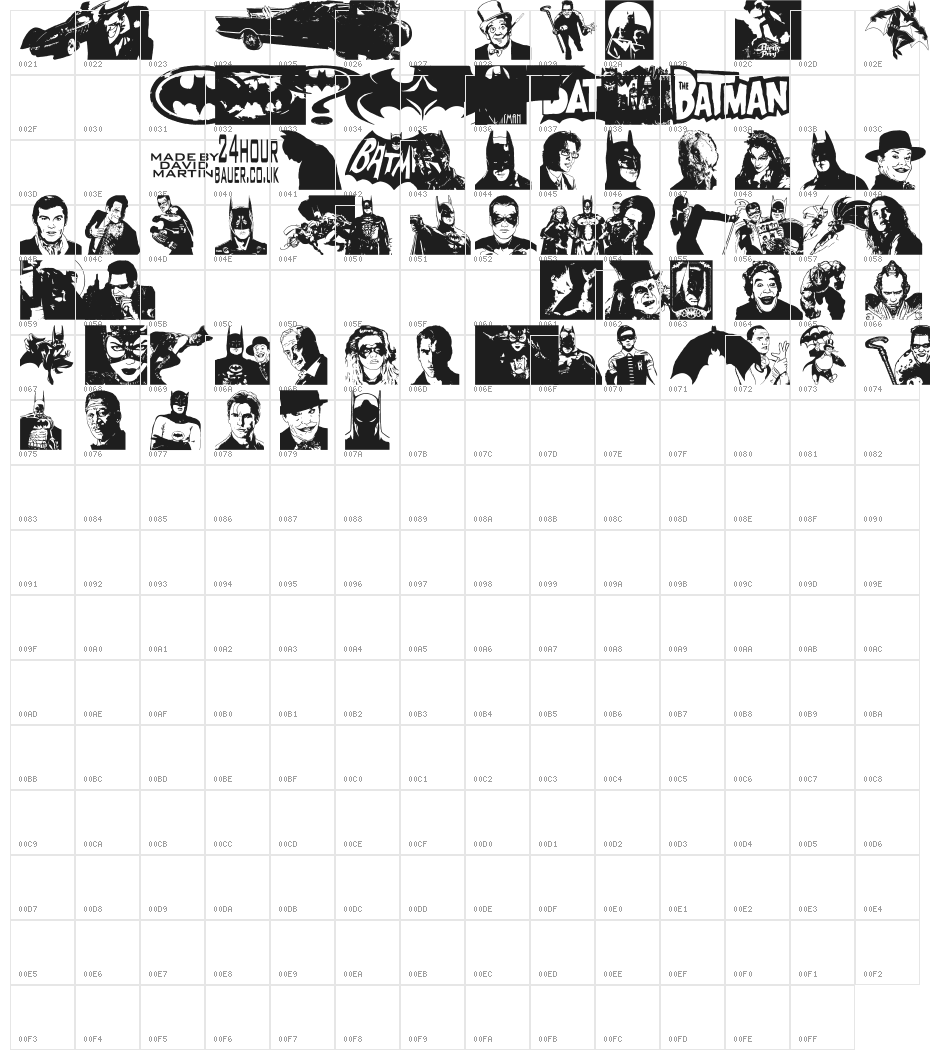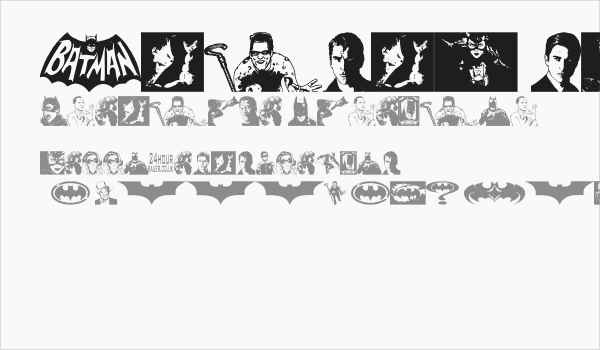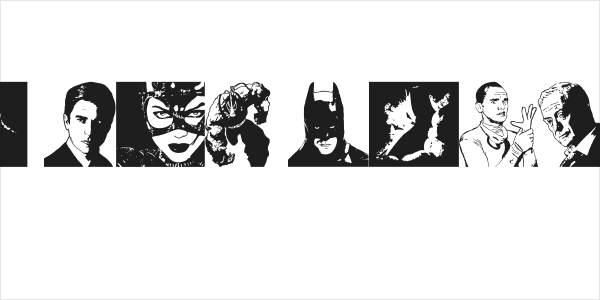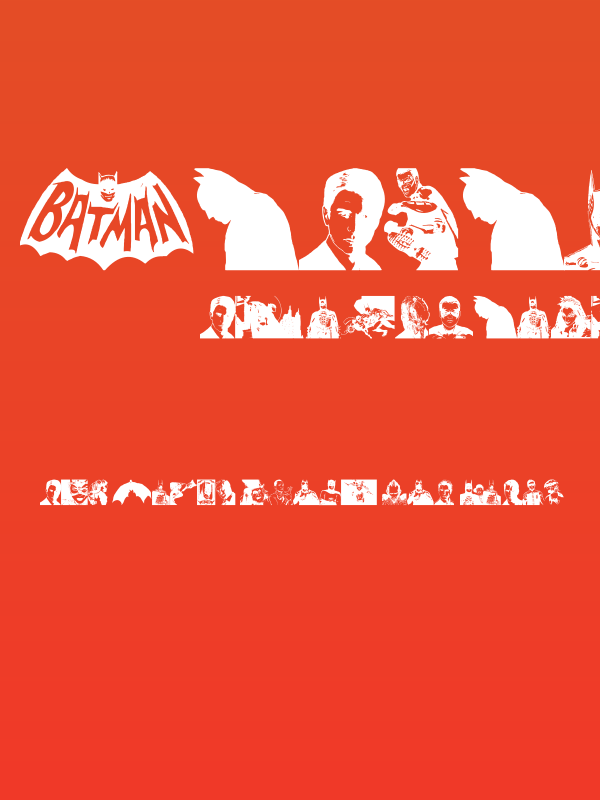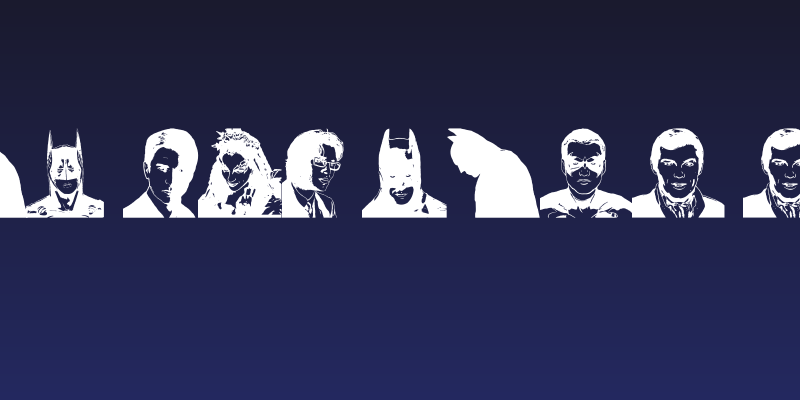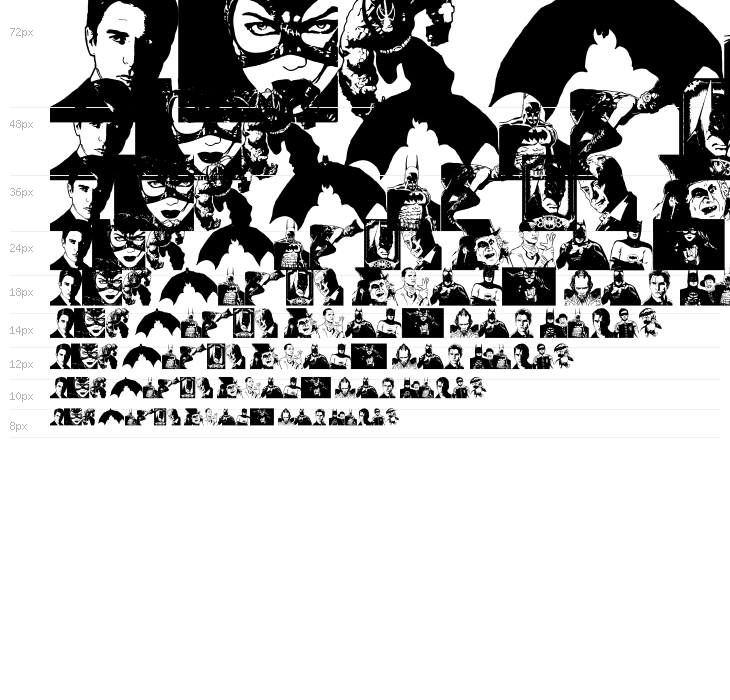
Batman The Dark Knight Font
Batman The Dark Knight Description
A highly decorative, comic-inspired font featuring detailed illustrations of characters, vehicles, and symbols from the Batman universe. Each glyph is a unique graphic element rather than a traditional letterform, emphasizing bold, high-contrast black-and-white artwork.
| Overall Style | Decorative, Comic, Thematic |
| Use Case | Logos, Headlines, Posters, Themed graphics |
| Proposed Projects | Posters, fan art, themed party invitations, comic book covers, event flyers, novelty merchandise. |